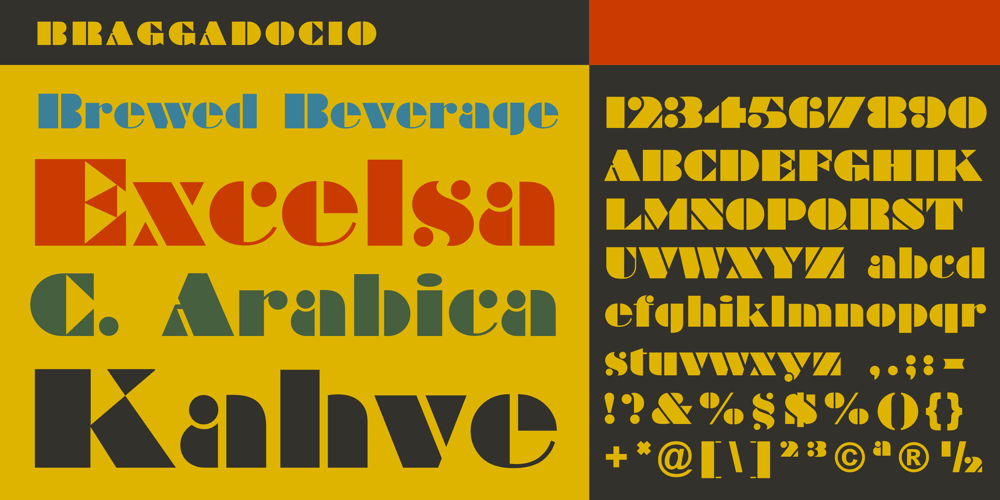
Braggadocio
Braggadocio font
Braggadocio Font Family was designed by W. A. Woolley and published by Monotype. Braggadocio contains 1 styles and family package options. Braggadocio is a very black typeface. Braggadocio is a strange hybrid with characteristics of both sans serif and modern faces; and it belongs very much to its time. Like high society in the 1920’s, it should not be taken too seriously. Use the Braggadocio font for display lines in advertising, magazines and light hearted communications.